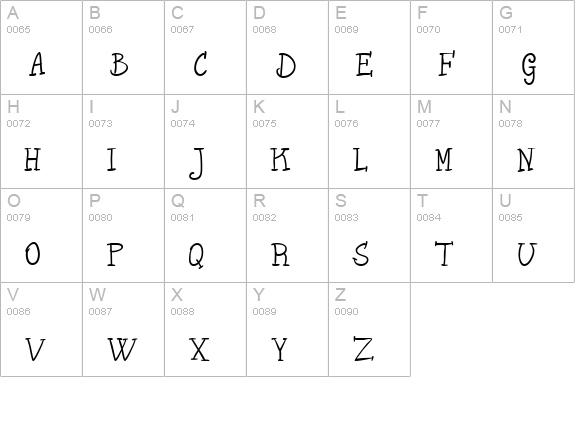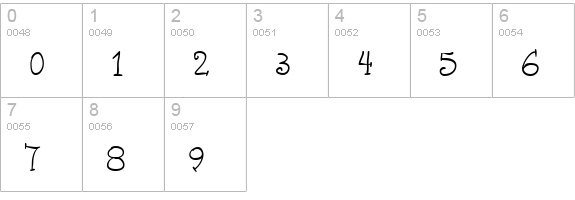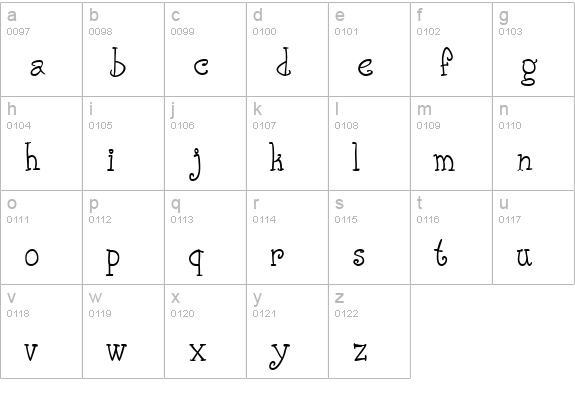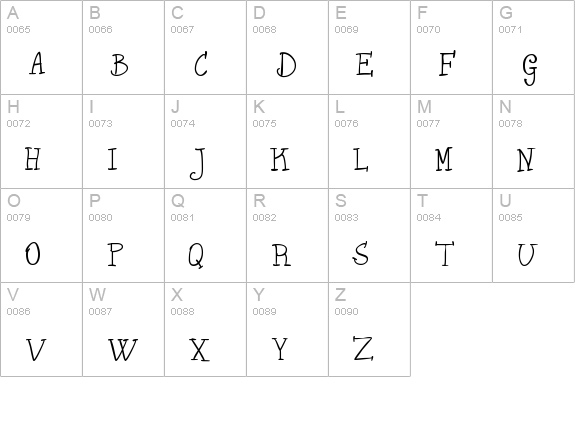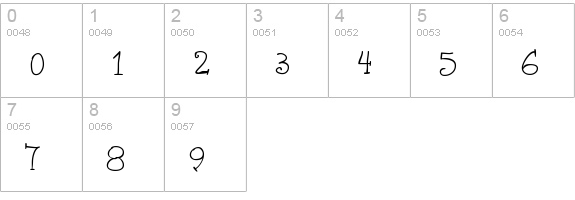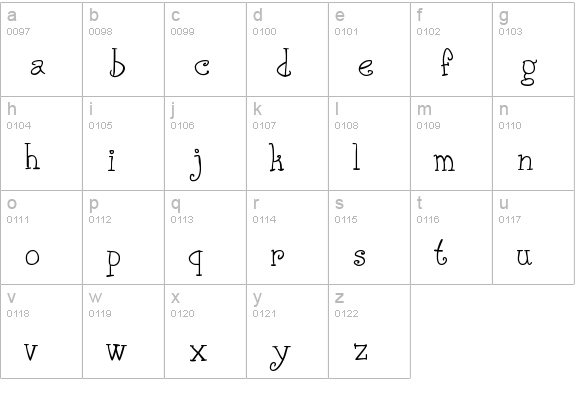
Phank Font Details
Introducing Phank font, a stunning and versatile typeface that is sure to make a lasting impression on your designs. This font exudes elegance and sophistication, making it the perfect choice for a wide range of projects, from branding and logos to invitations and headlines. With its clean lines and modern yet timeless aesthetic, Phank font is a true standout. Its carefully crafted letterforms, with just the right amount of curvature and contrast, create a harmonious balance that is pleasing to the eye. The attention to detail in every character is evident, resulting in a truly remarkable typeface that is both visually striking and highly legible. One of the most exciting aspects of Phank font is that it is free! Yes, you read that right. This incredible font is freely available to download at FontsMarket.com. This means that you can add this beauty to your font library without breaking the bank. Whether you're a professional designer or a hobbyist, Phank font offers you the opportunity to elevate your designs without any cost. The versatility of Phank font knows no bounds. Its extensive character set includes uppercase and lowercase letters, numerals, punctuation marks, and special characters, making it suitable for multiple languages and design applications. Its bold presence and refined style make it a perfect choice for headlines, while its legibility ensures that it shines in longer blocks of text. Phank font is compatible with both print and digital media, allowing you to seamlessly integrate it into any project. Whether you're designing a business card, a website, or a poster, this font will undoubtedly make your work stand out from the crowd. Its timeless appeal ensures that it will remain relevant and impactful for years to come. So why wait? Download Phank font for free at FontsMarket.com and unlock the potential of this remarkable typeface. Let your creativity soar and watch as your designs come to life with the elegance and sophistication that only Phank font can provide. Don't miss out on this opportunity to enhance your design toolkit and make a lasting impression with Phank font.